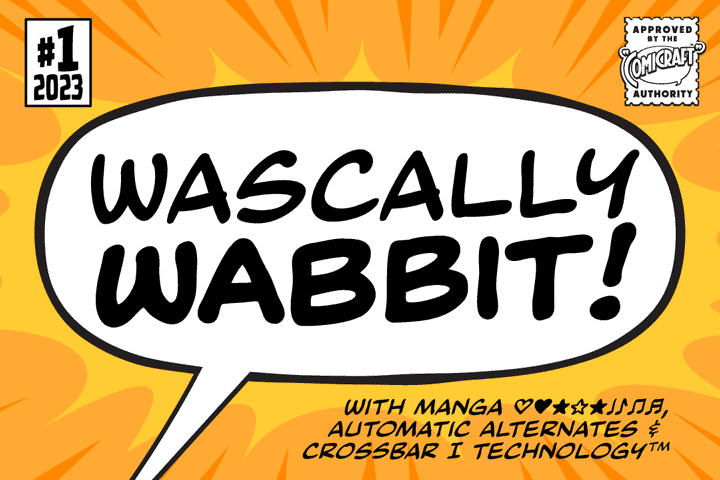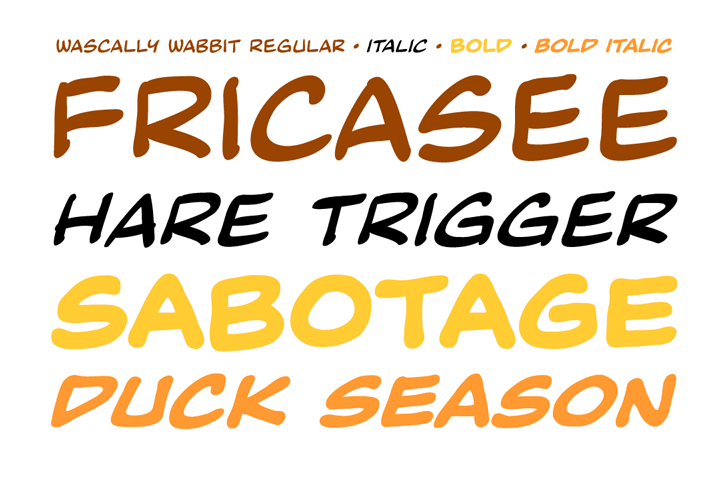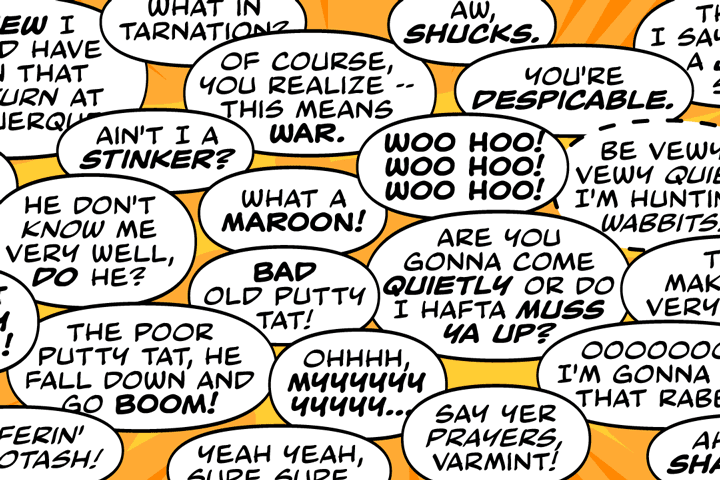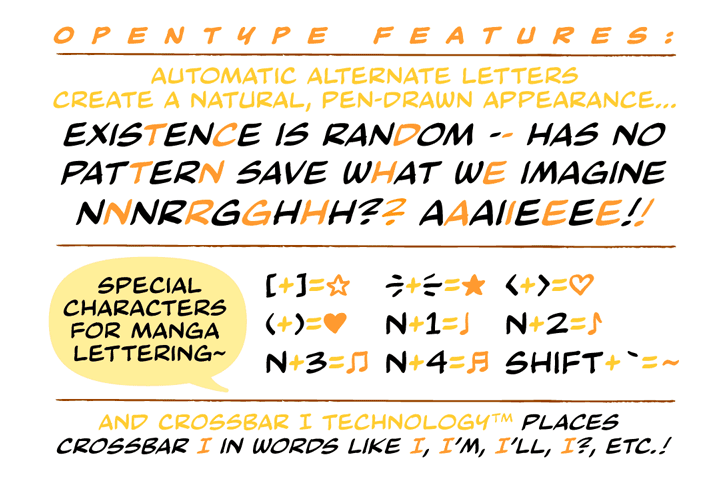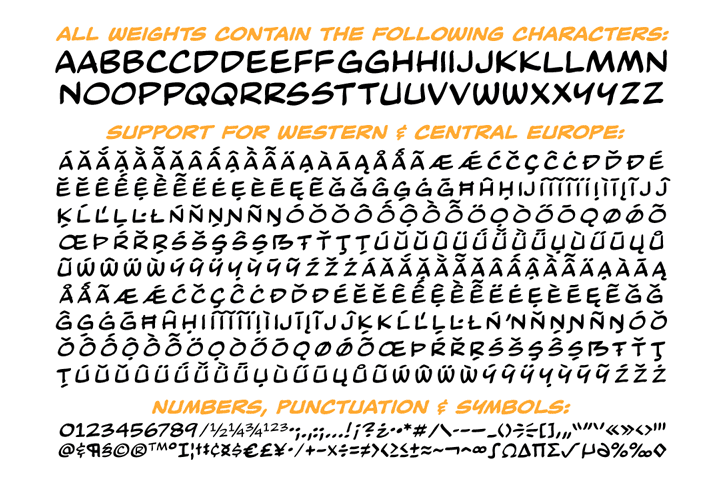
Wascally Wabbit
This cunning, conniving, chattering font is devious, devilish and dashing! It's a toon town tattler that will lend a flippant insouciant personality to your comic books and animated features. These handsome letterforms will nab you, jab you, grab you and may even stab you with their sly wily guile. Our advice: Be Very Very Qwiet when tracking down this Wascally Wabbit.
Four weights with alternate uppercase alphabets
Plus: Automatic alternates, Manga characters & Crossbar I Technology™
Wascally Wabbit – Playful Cartoon Dialogue & Character Font
Bring classic slapstick animation to life with Wascally Wabbit, a playful character dialogue font designed for animated webseries, funny webcomics, and children’s book speech balloons. Featuring bouncy, expressive pen strokes and a jovial rhythm, this friendly typeface gives comedic characters an unmistakable visual personality. Wascally Wabbit includes four versatile weights, automatic character ligatures, and full European language support with Crossbar I Technology™. Get Wascally Wabbit today!